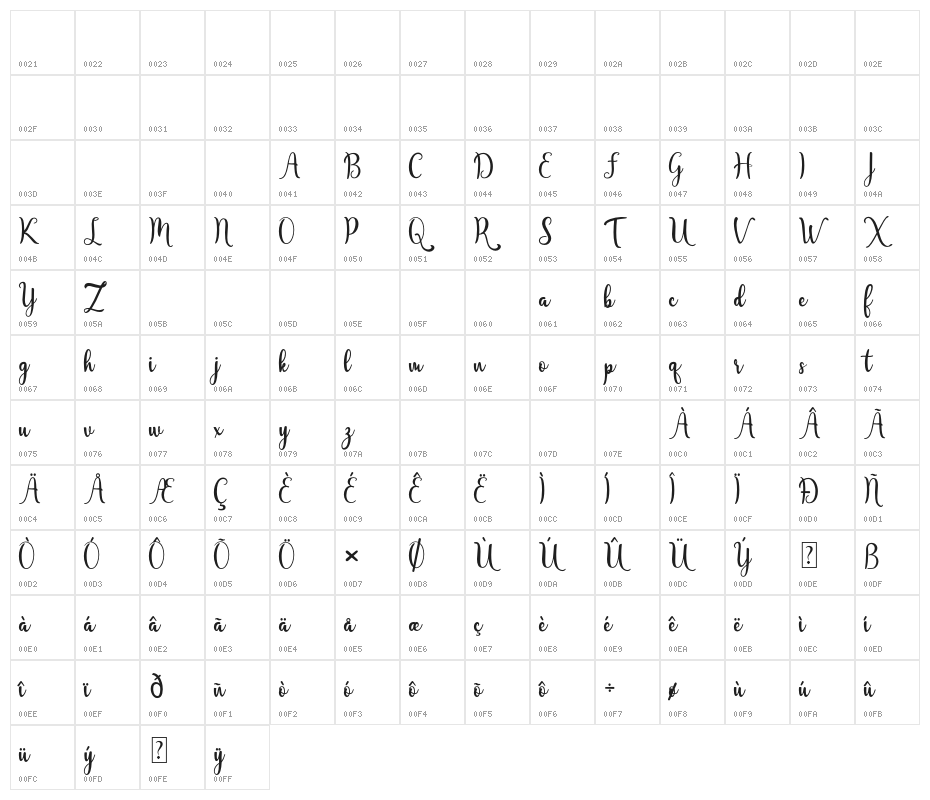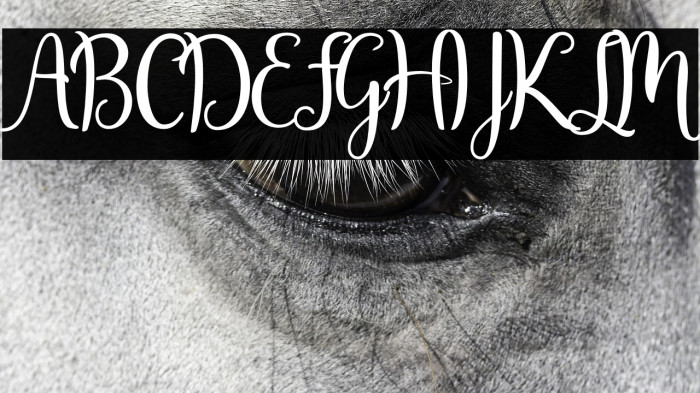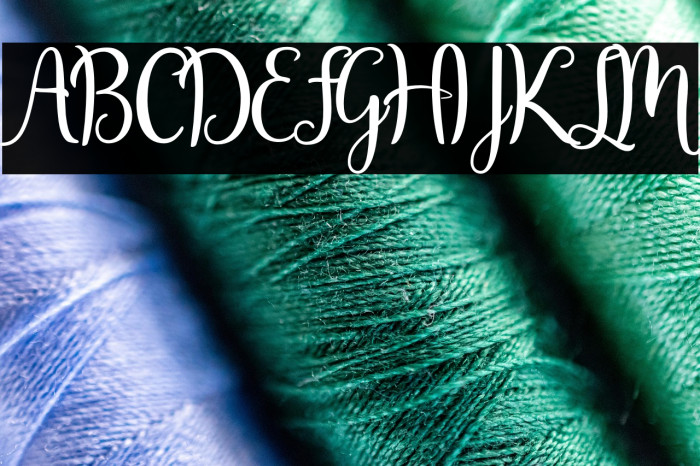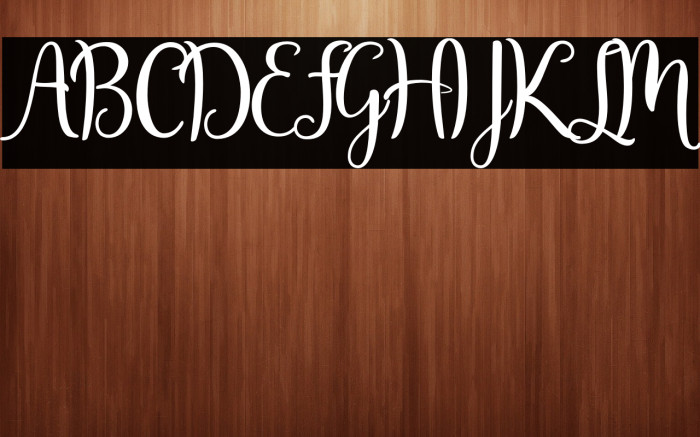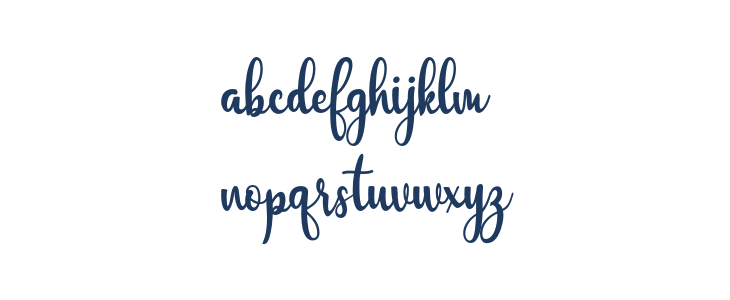
JavinkaScript Font
JavinkaScript Description
This font features a flowing, cursive style with elegant loops and swirls, giving it a handwritten appearance. The uppercase letters are tall and graceful, with varying stroke widths that add a dynamic feel. The lowercase letters maintain a consistent style, with smooth connections between characters, enhancing its script-like quality. The overall design is both sophisticated and playful, making it suitable for creative projects. The font's unique character shapes and fluidity make it stand out, offering a blend of modern and classic script elements.
| Use Case | Logos, Invitations, Decorative text |
| Proposed Projects | Ideal for wedding invitations, greeting cards, branding, and logo design. |